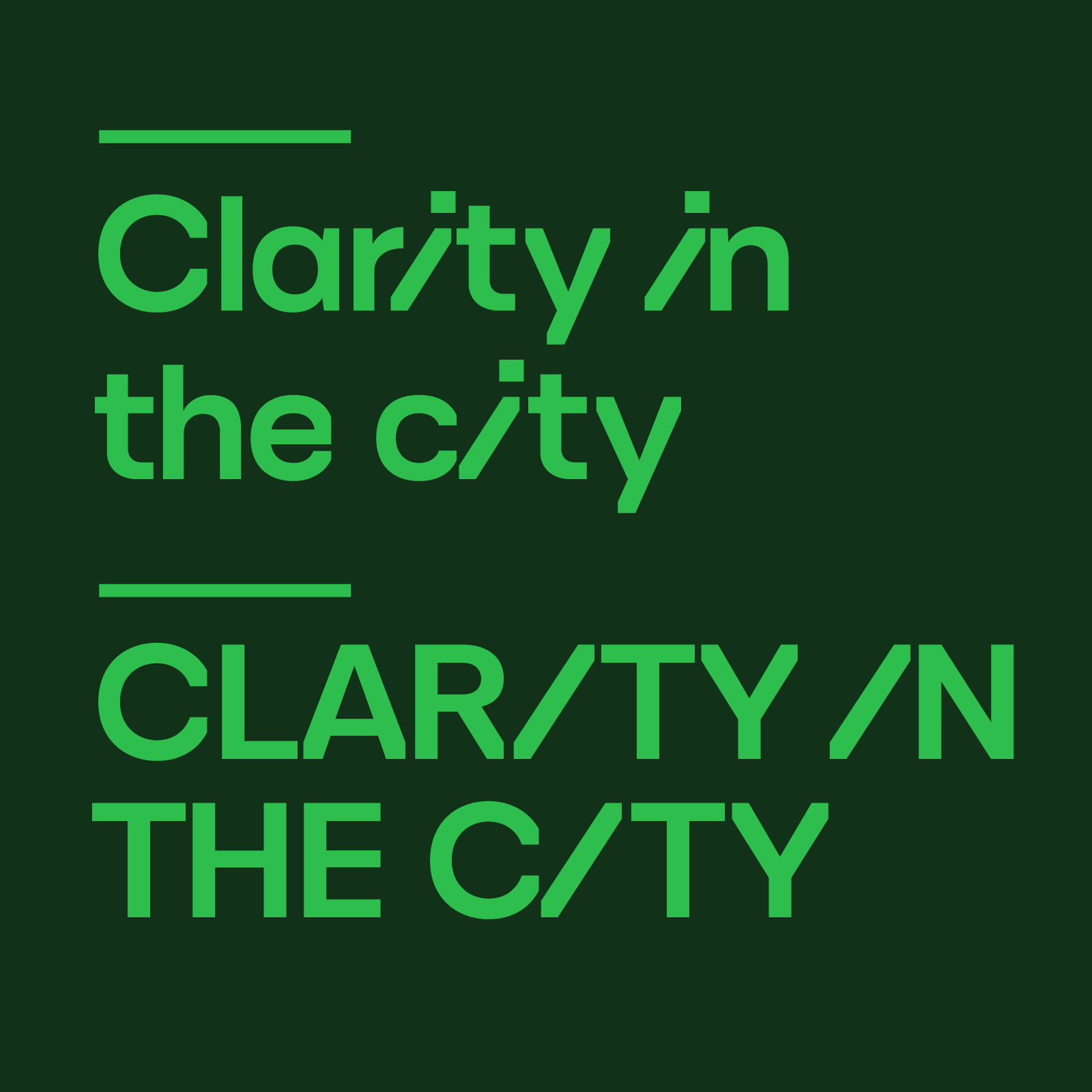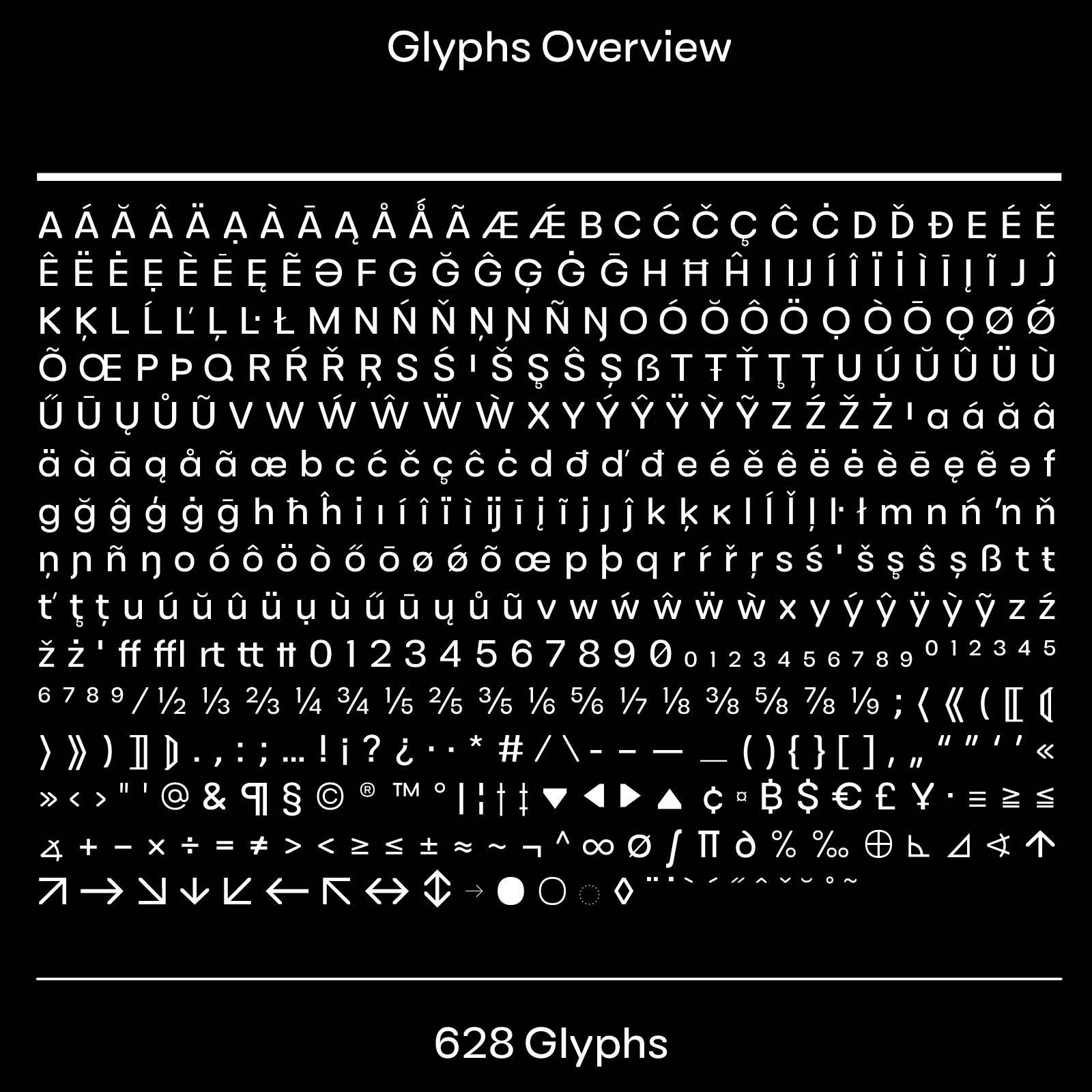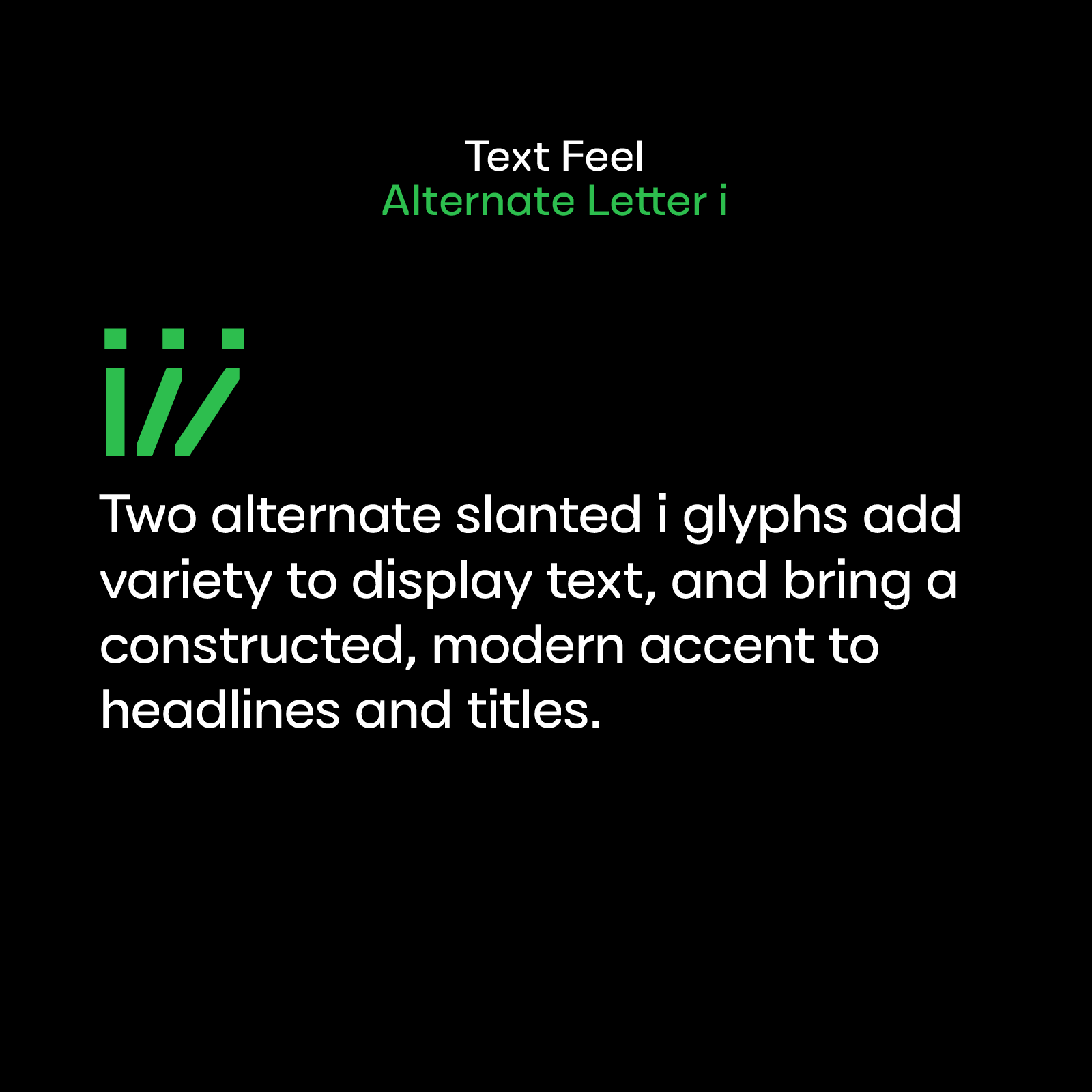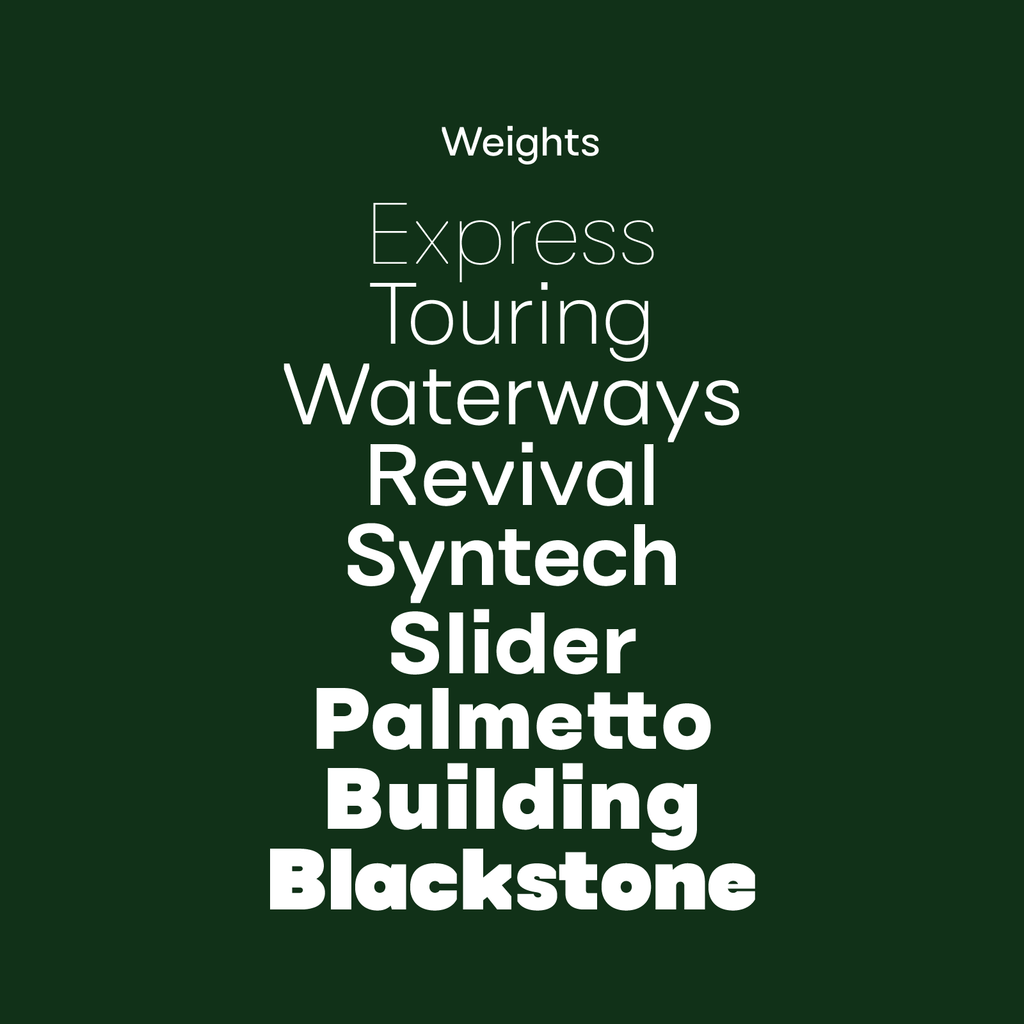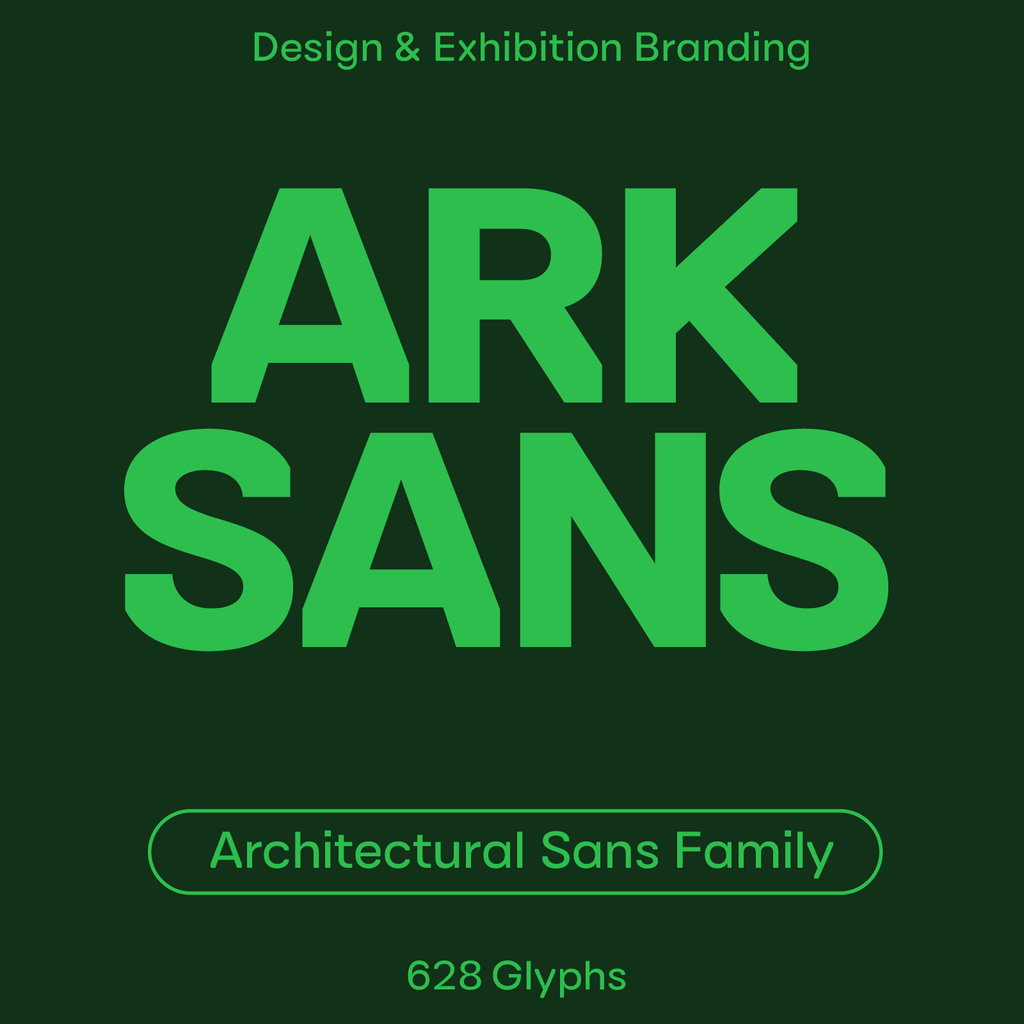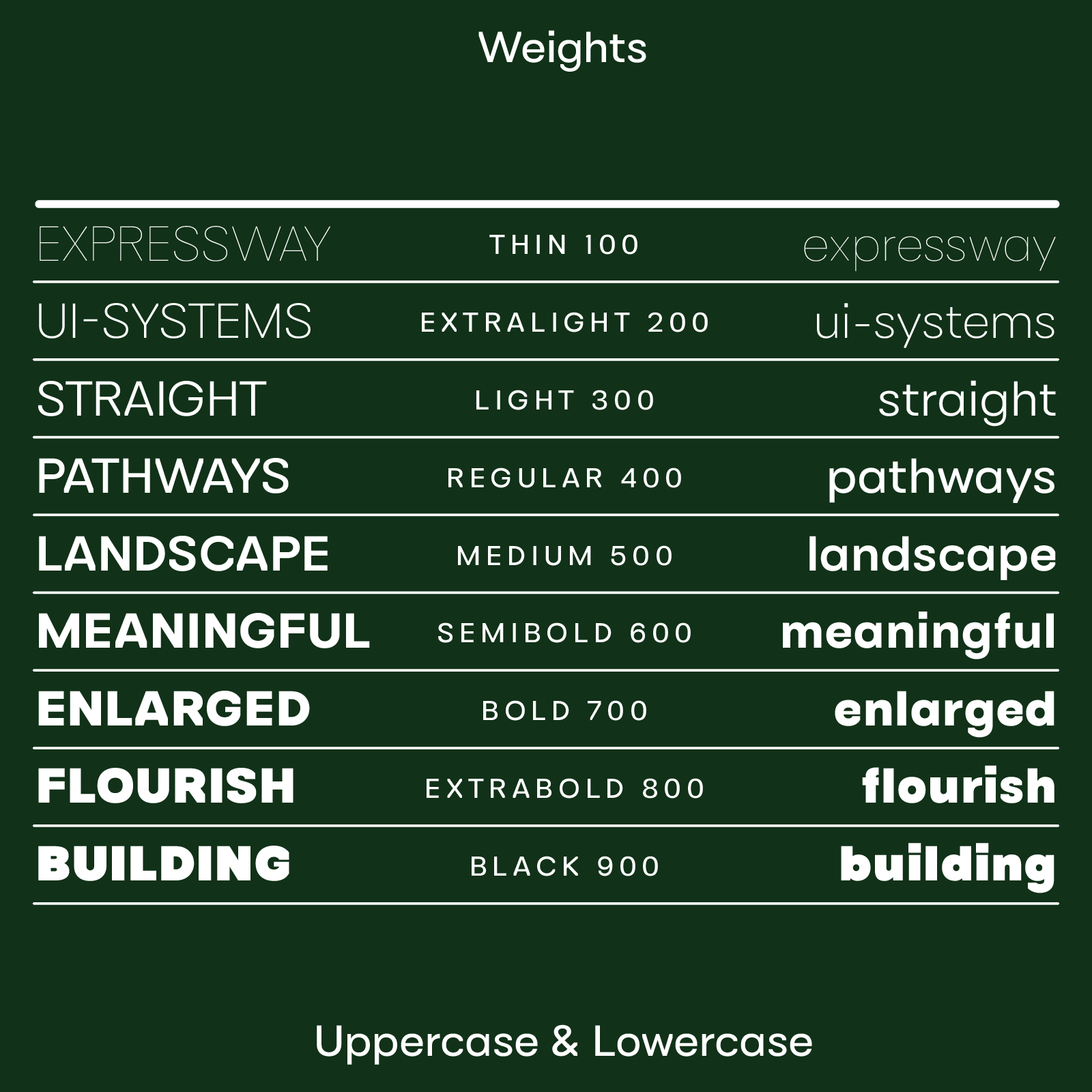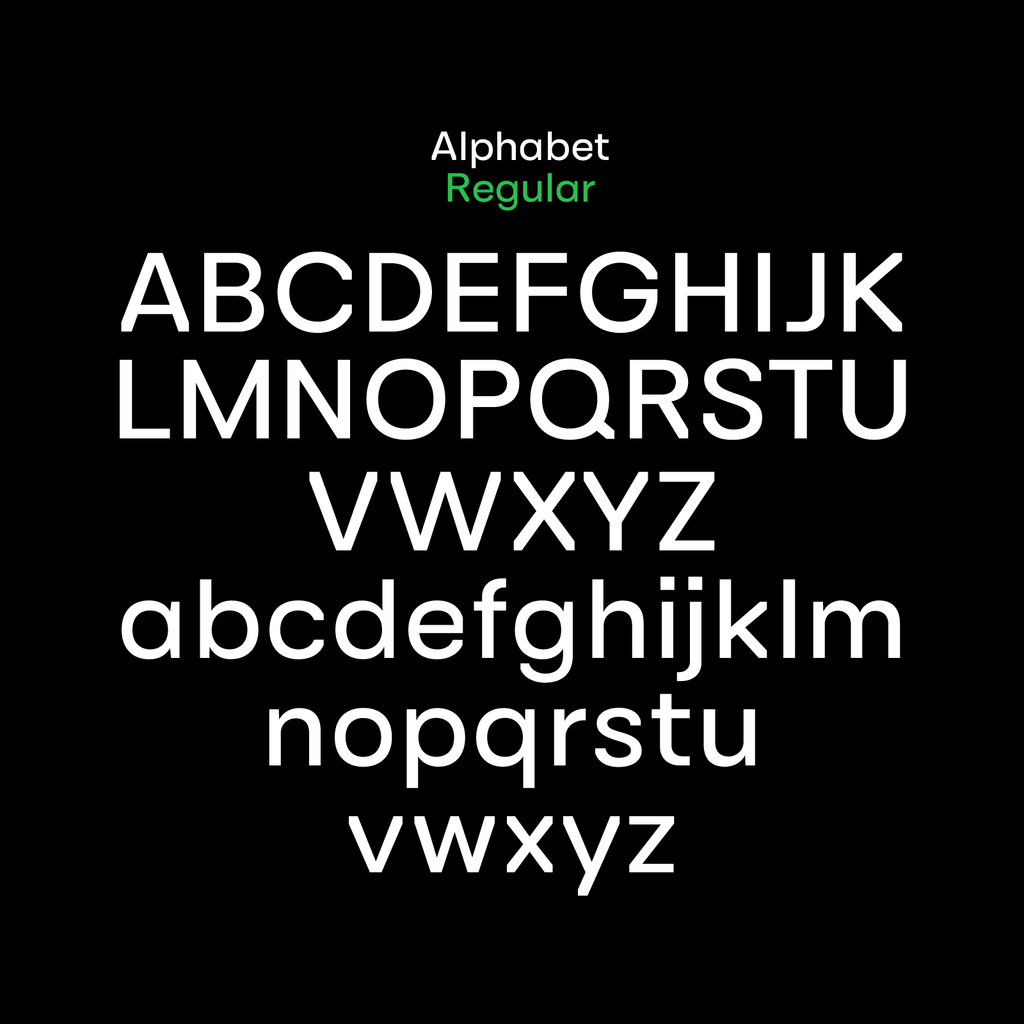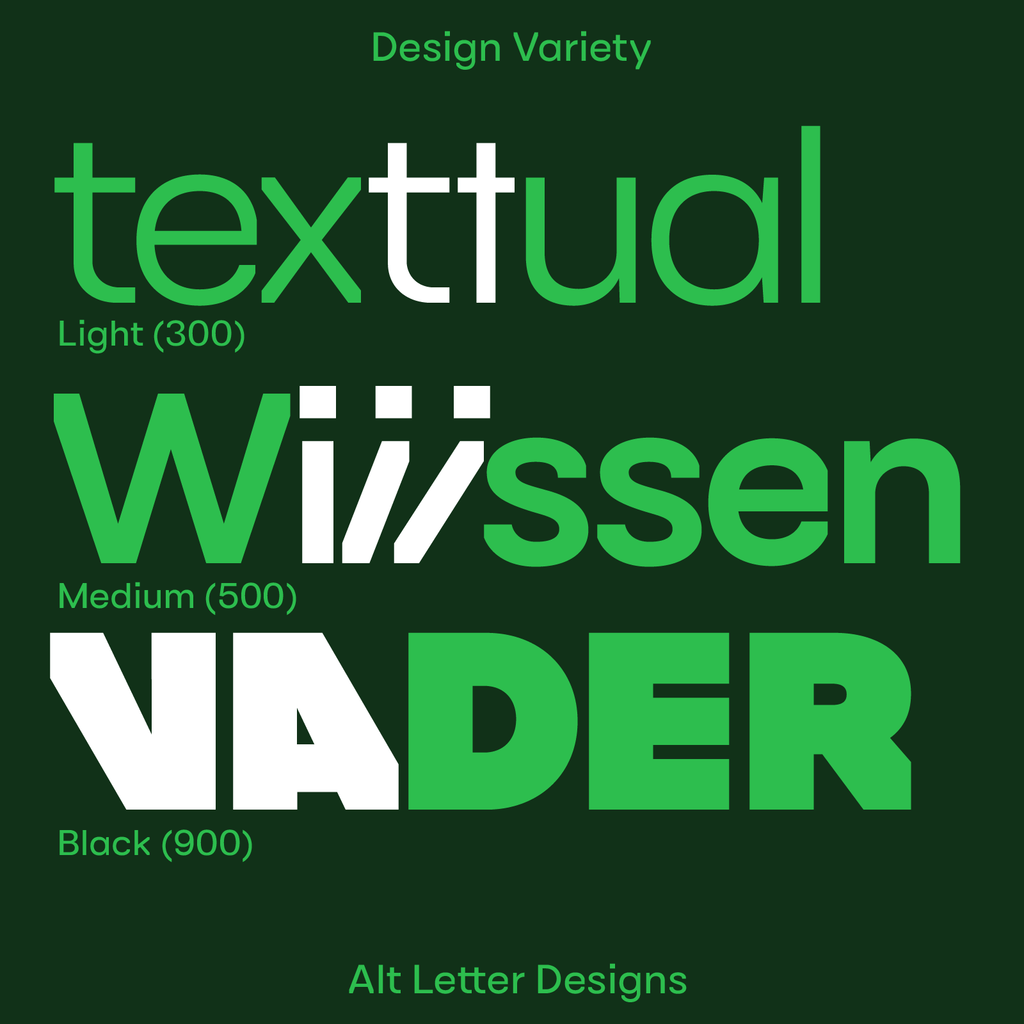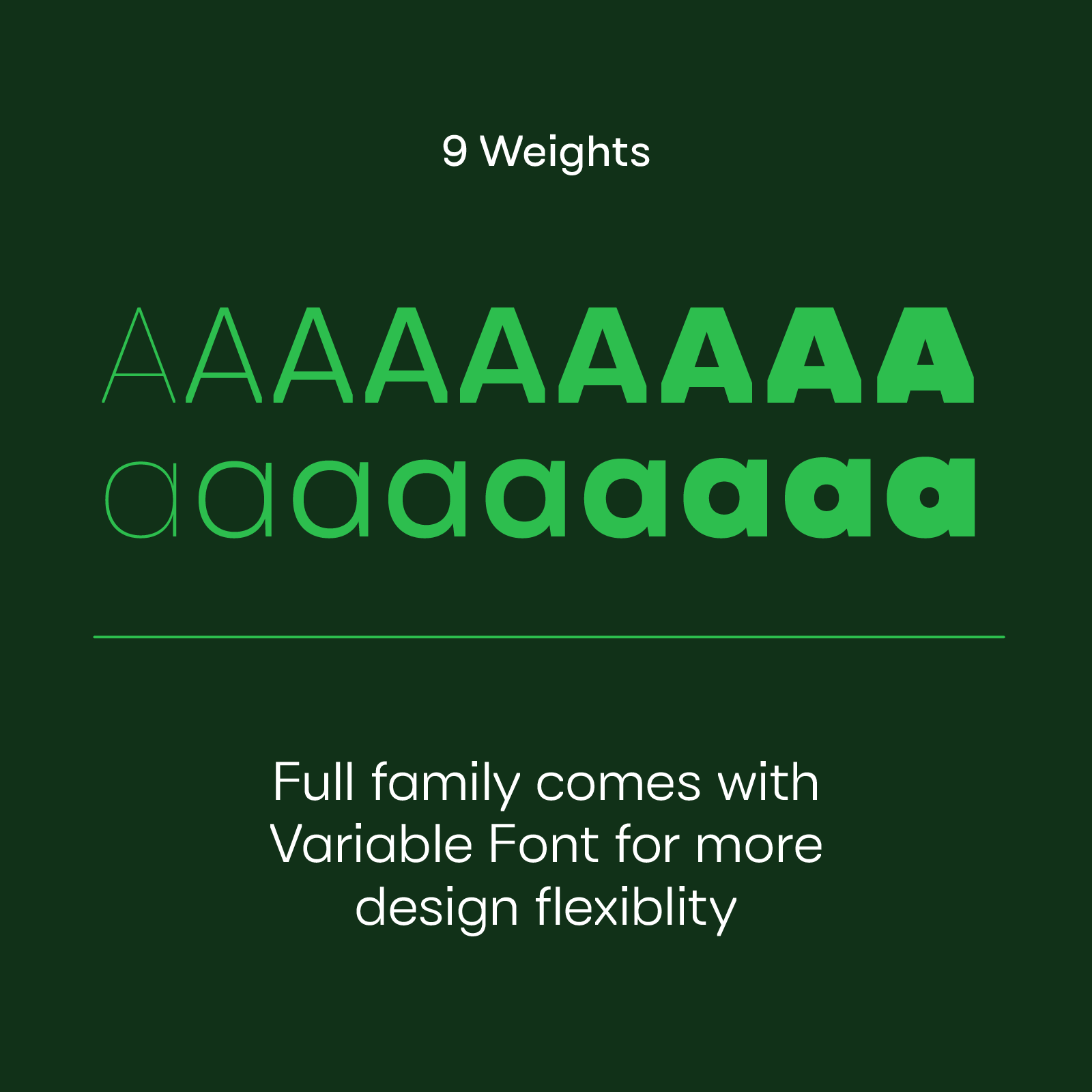
Ark Sans—Modern Architectural Sans Serif Font, Cut Diagonals
Ark Sans is an architectural sans-serif typeface created for design-related brands, exhibitions, and project spaces that require a modern identity system with display and text use. The letterforms feel precise and geometric.
Straight cut diagonals in letters like A, R, and K, and squared bends in letters like t and f and introduce a technical quality. The design stays clean and legible in text and shows character at larger sizes. Punctuation is slightly enlarged for a stronger character.
The family includes nine weights, a variable font with the entire family, and supports many glyphs for use across signage, branding, and editorial layouts. Ark works well for architecture studios, museums, building and design projects, and startups that want a modern, masculine voice.